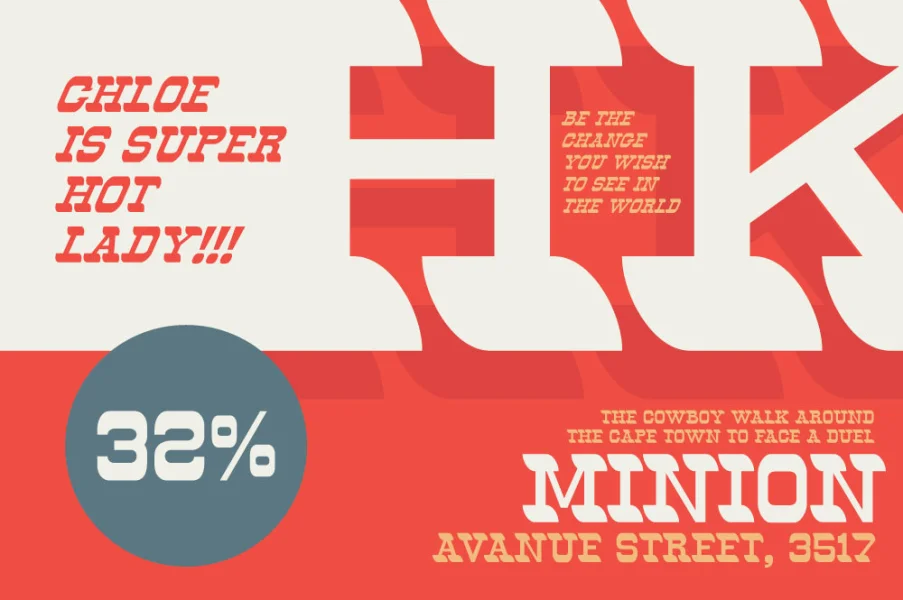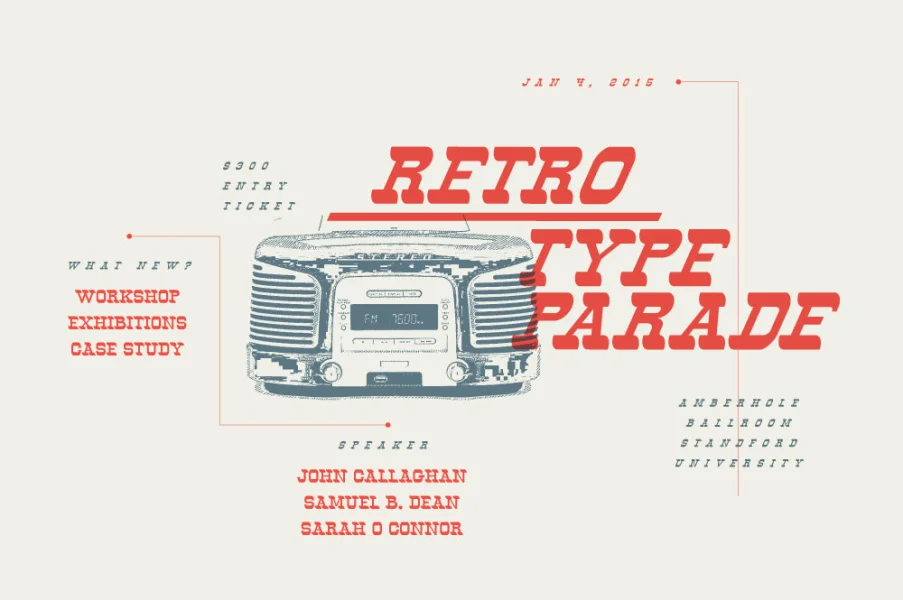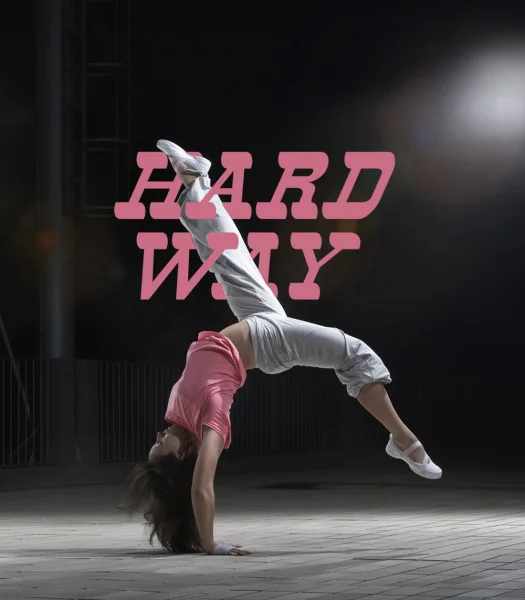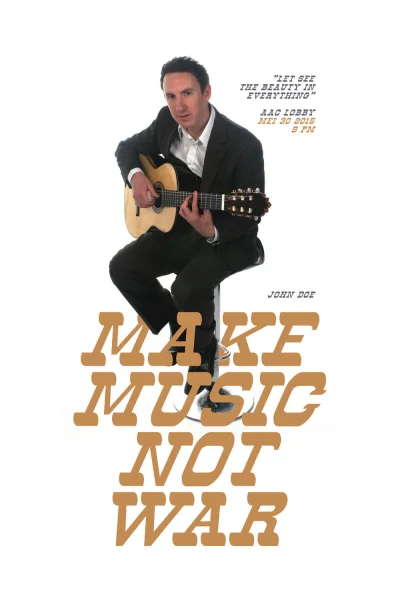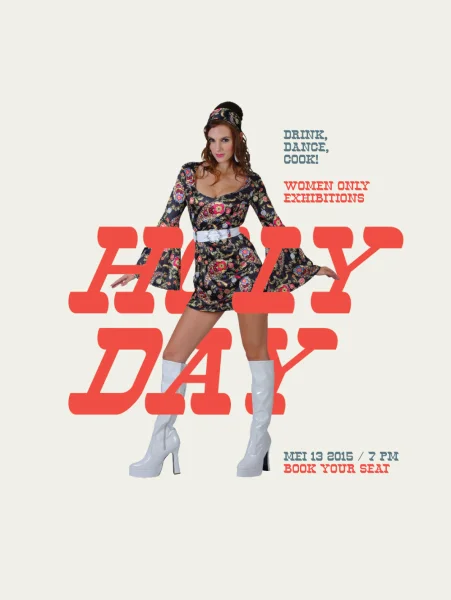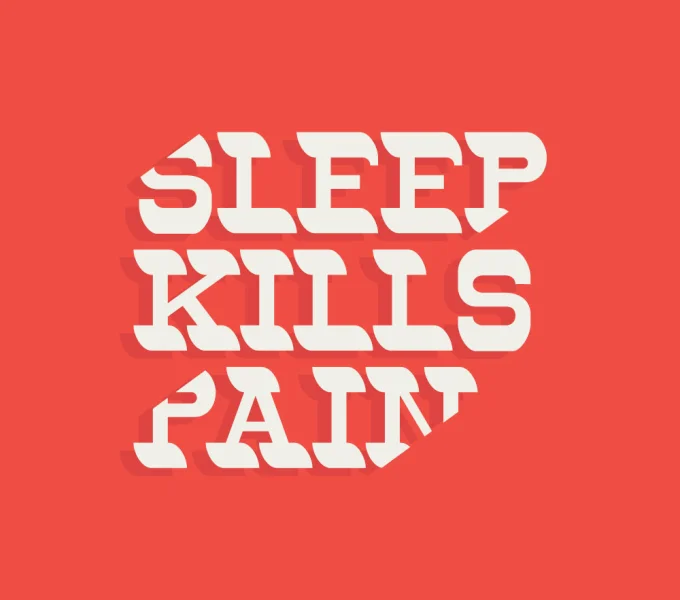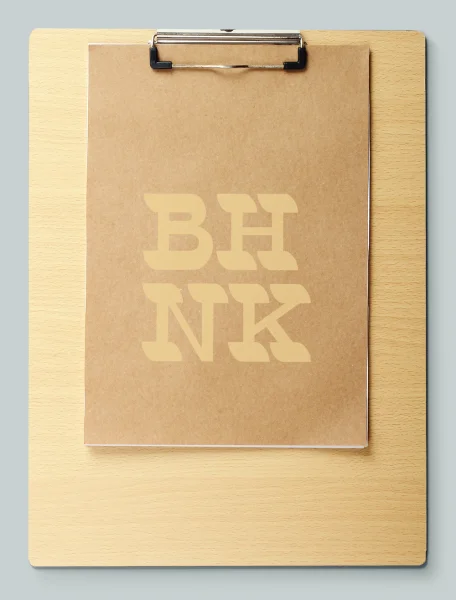
Oldways is a retro font that combines old western typography with the modern design style. It is highly suitable for poster, branding, logo, etc. You can easily give the feel of retro design style in a modern way into your project. Oldways font available in 2 styles: Regular and Italic. The good news is they're both free to download and used in any personal or commercial projects. Enjoy!